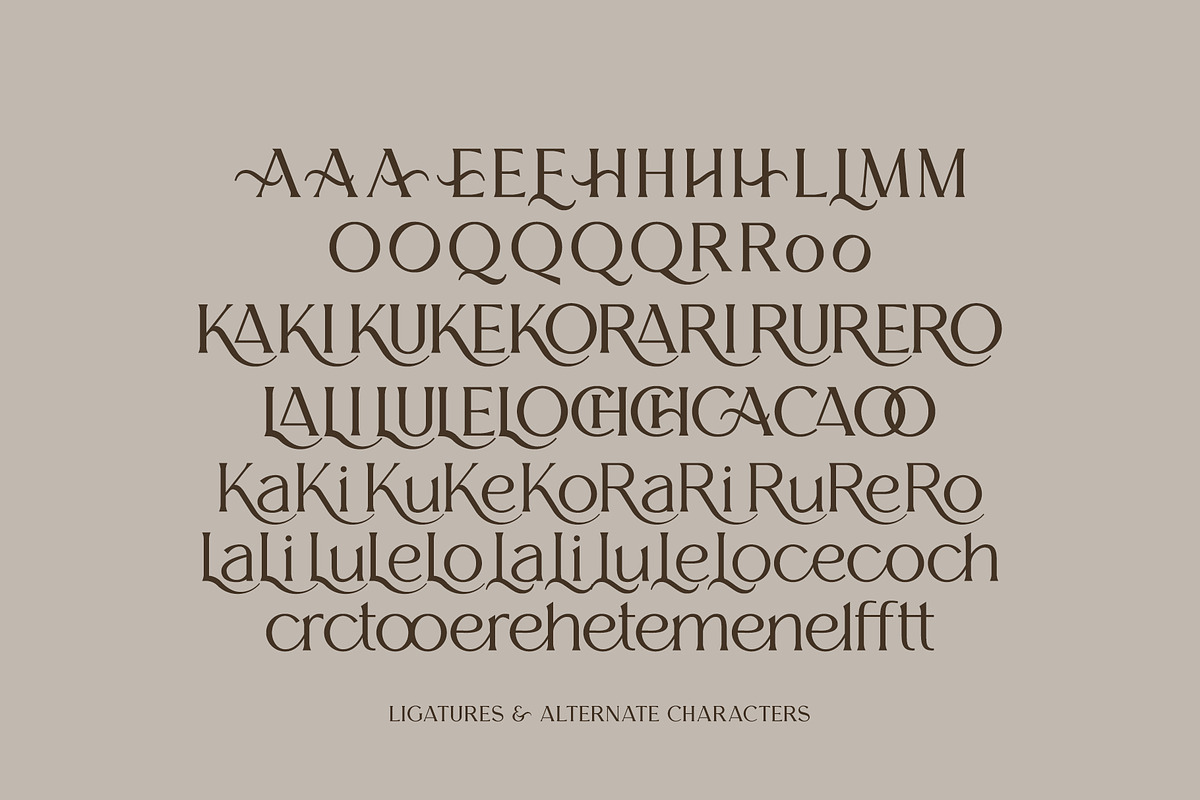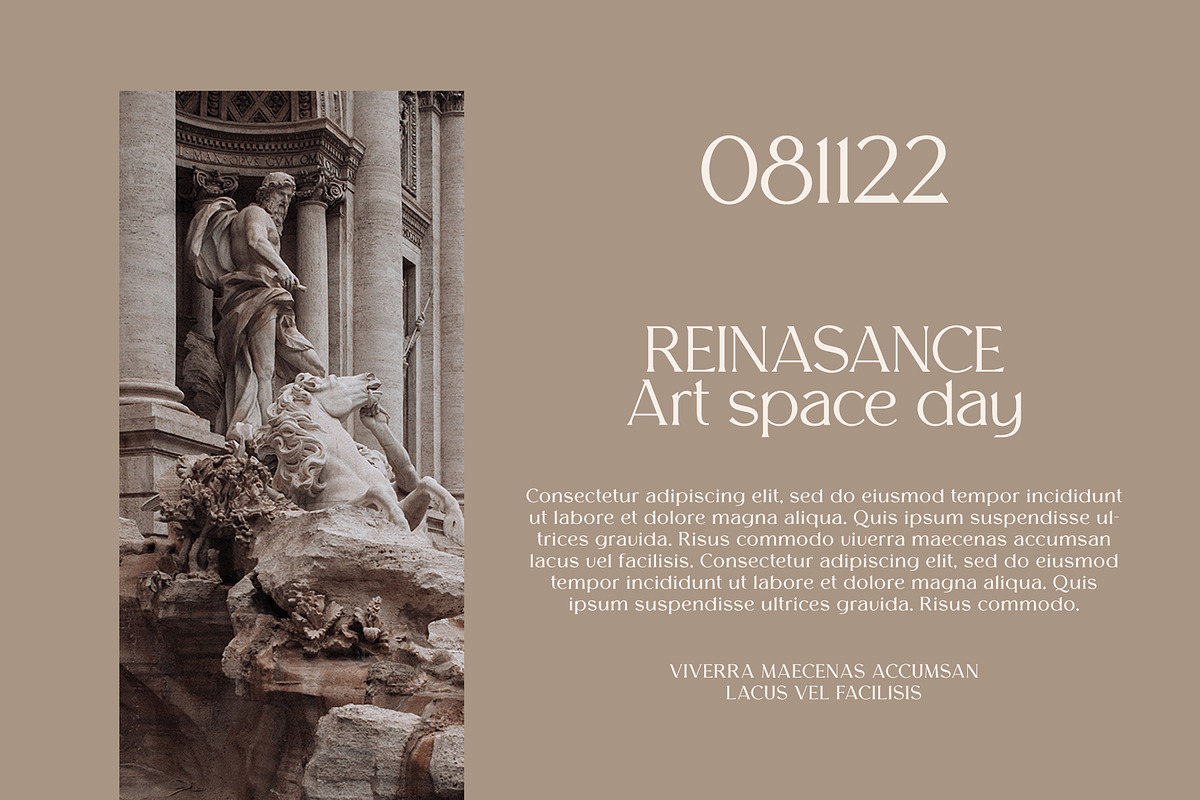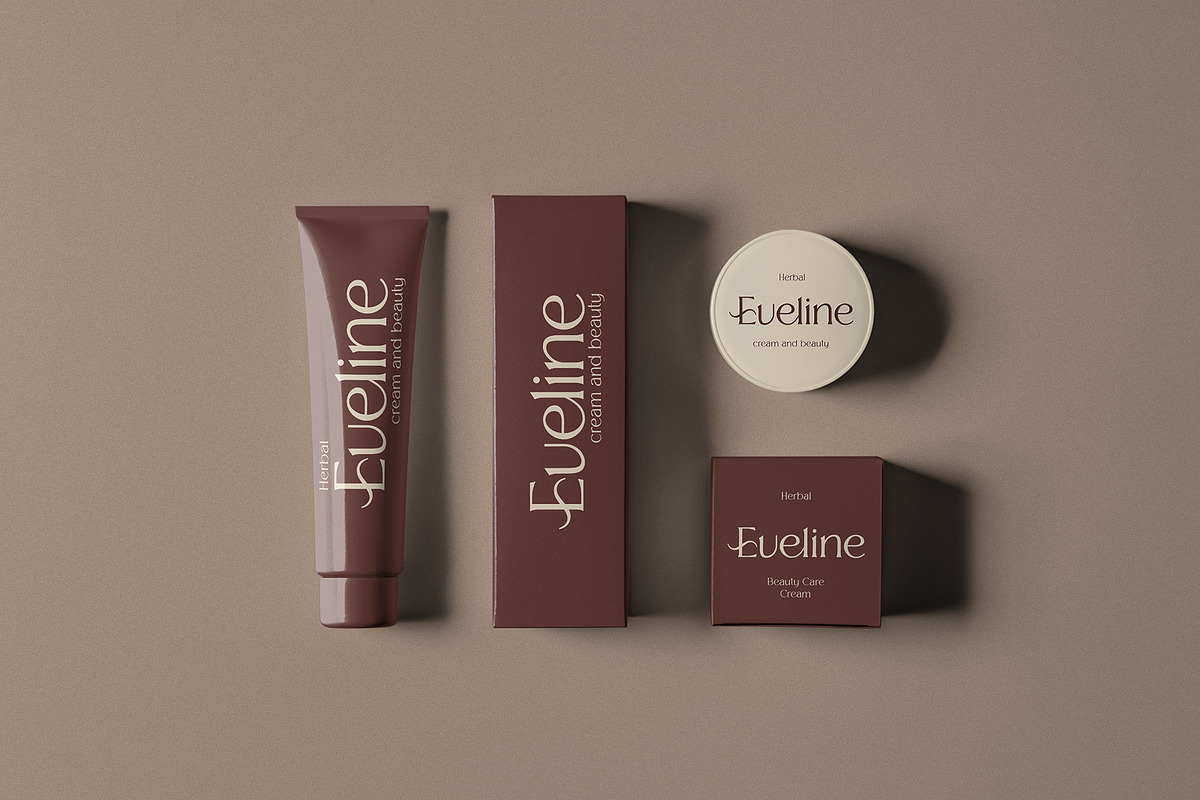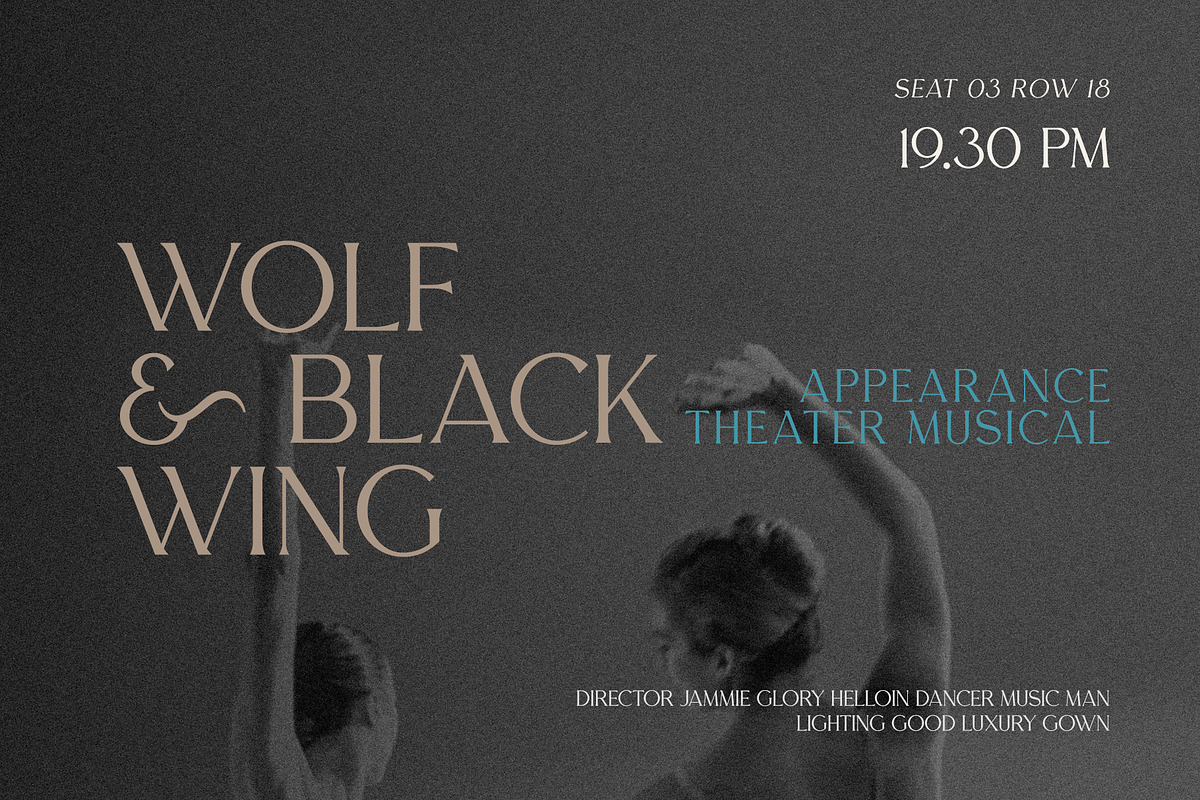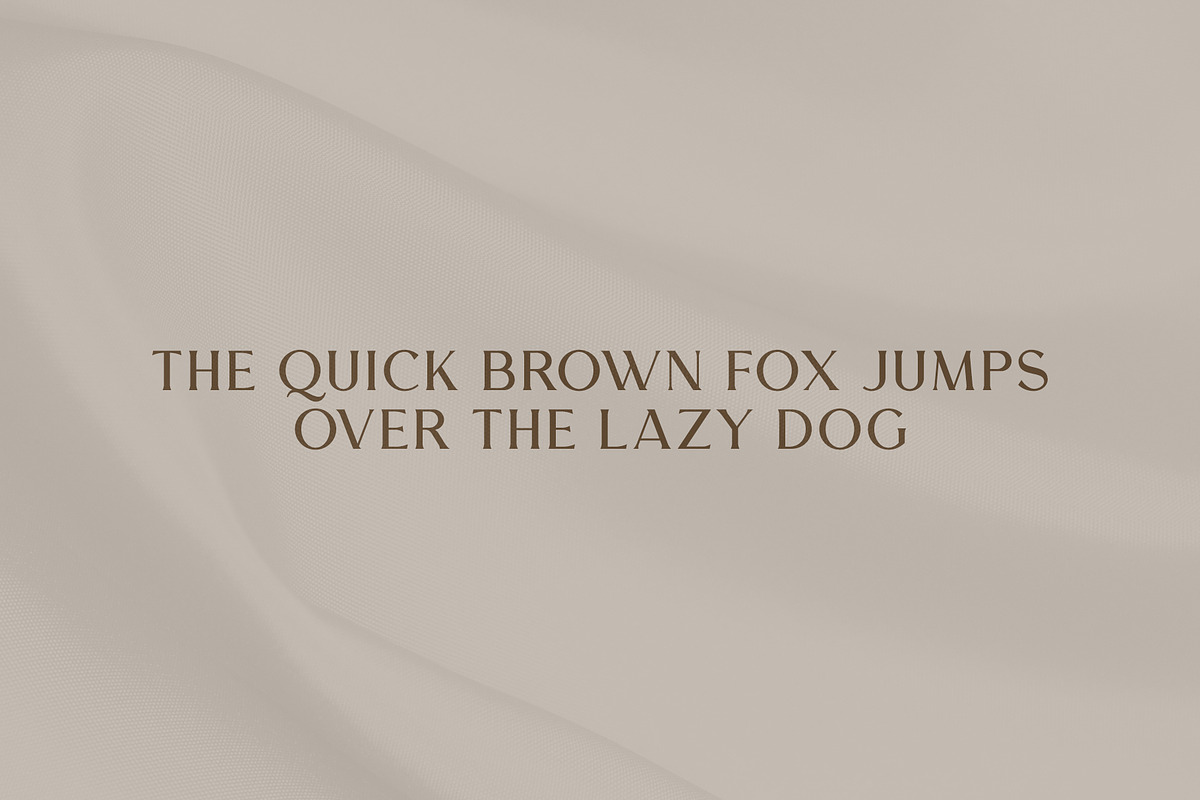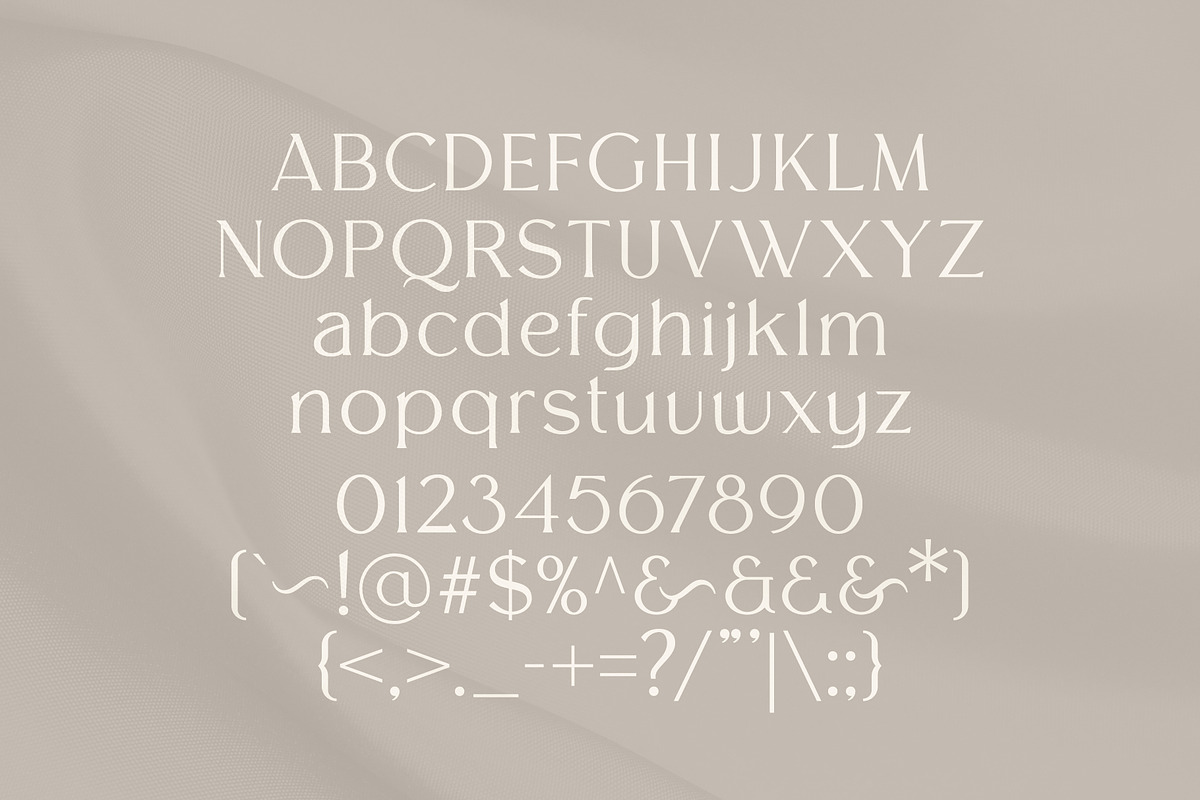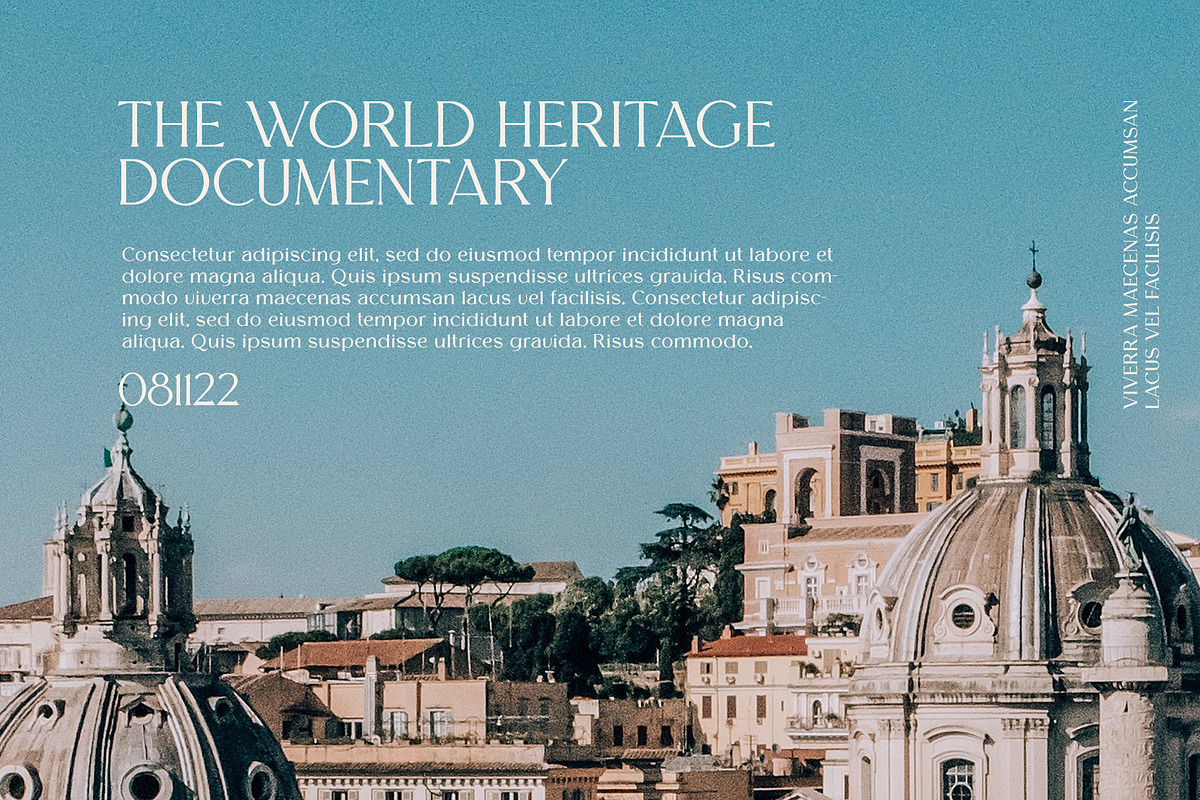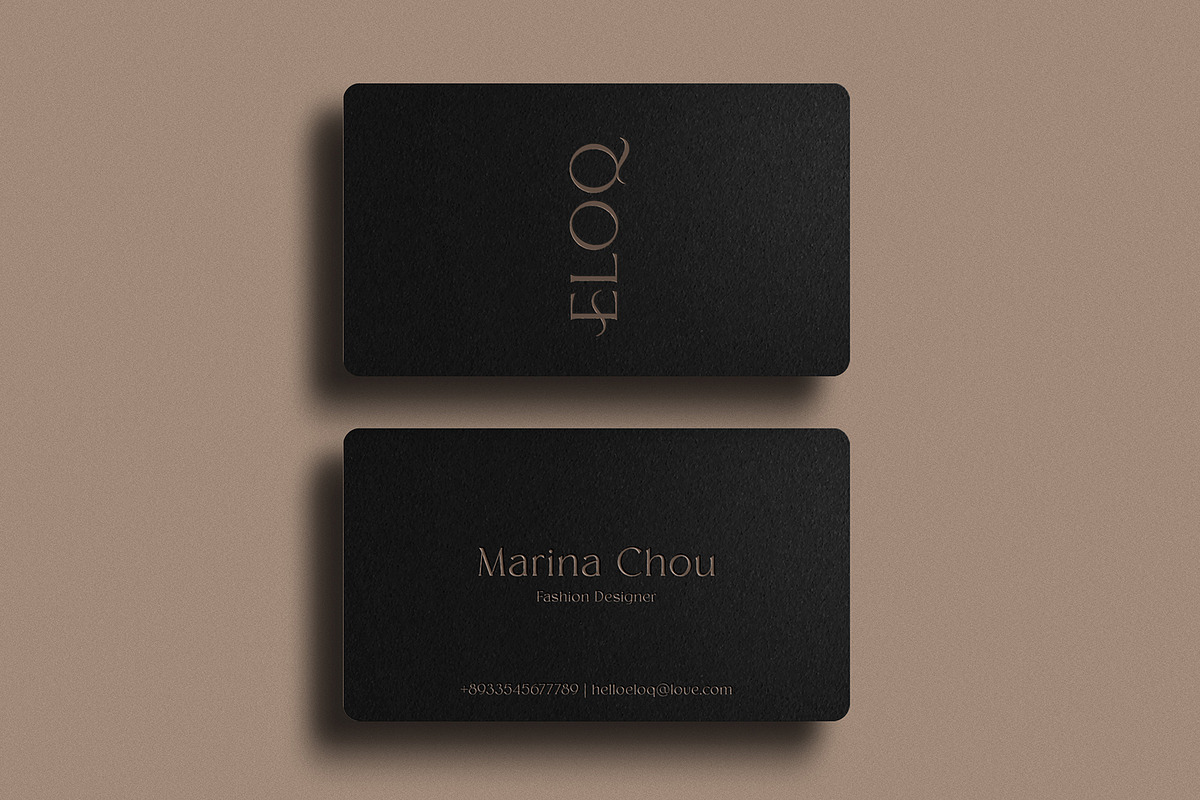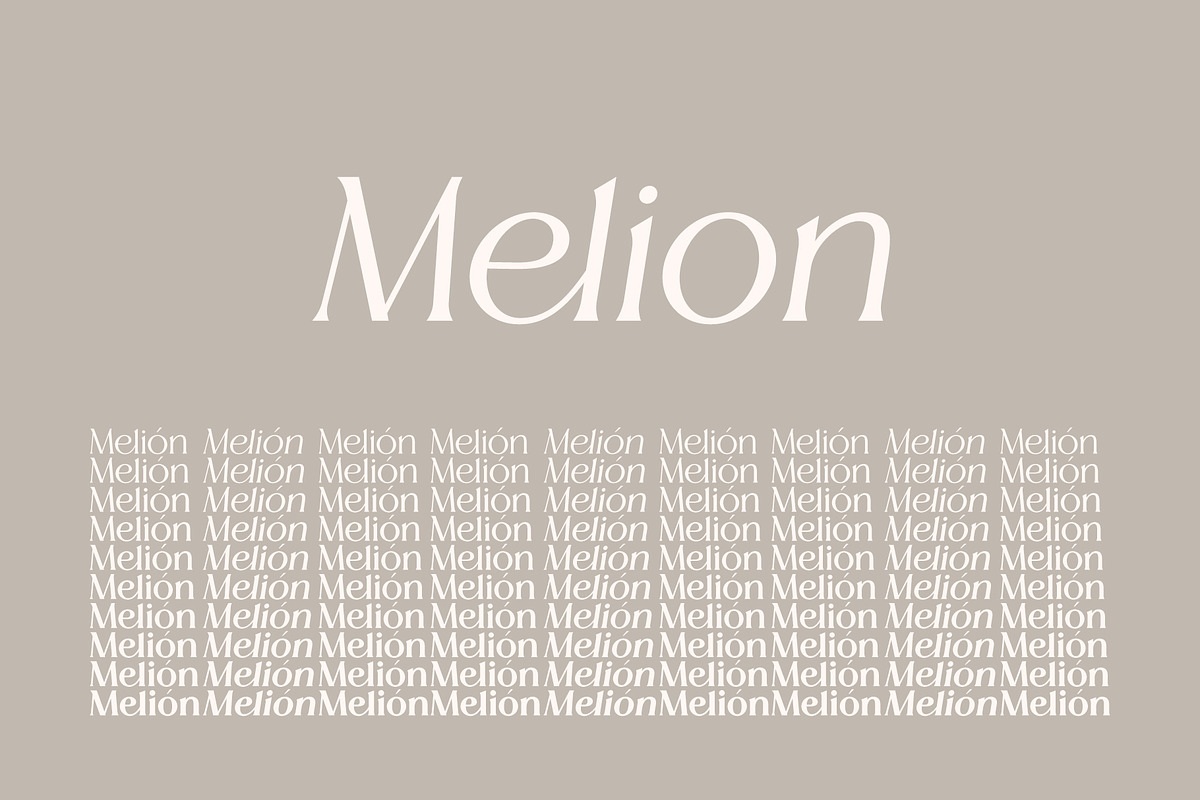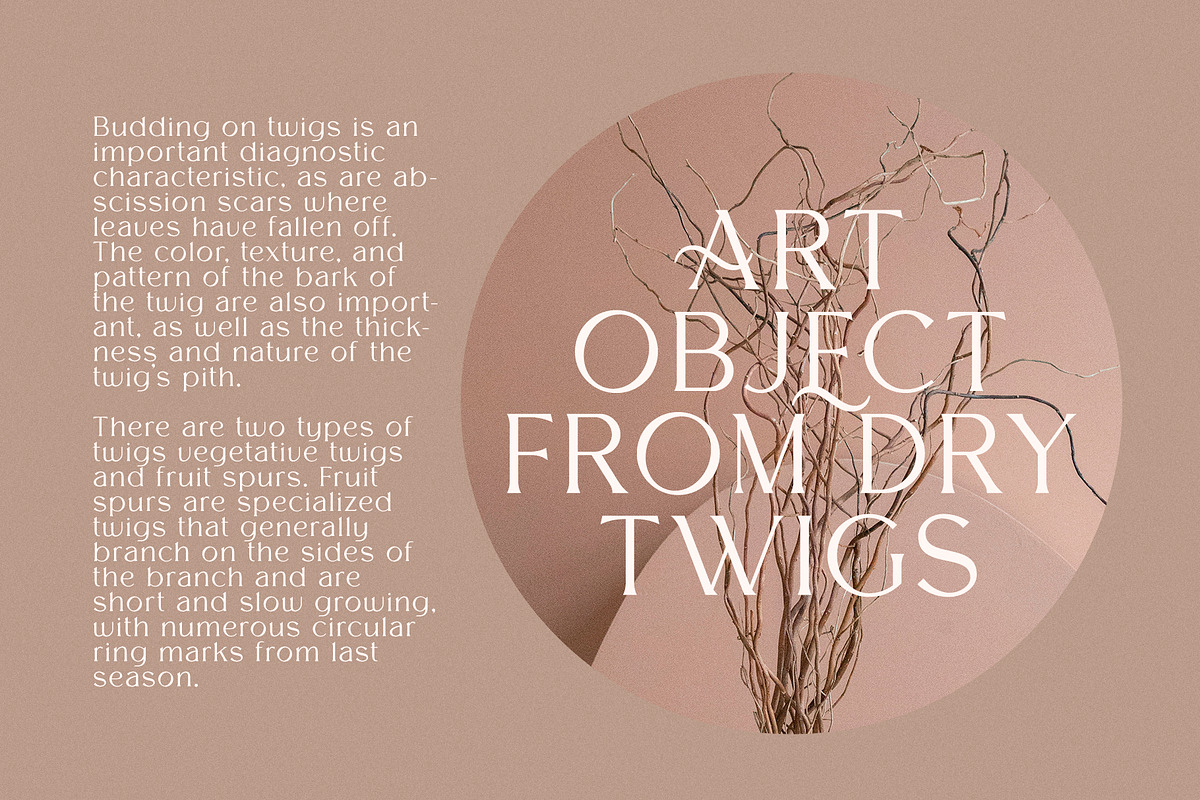
Melion
Melion is a typeface that comes with a family and ligatures, this font is very easy to apply and works very well for short letters or logo-based fonts, highly recommended for use with large print, or headlines for magazines, and products logo. Melion is very beautiful and good for working on a design that looks minimalist and elegant